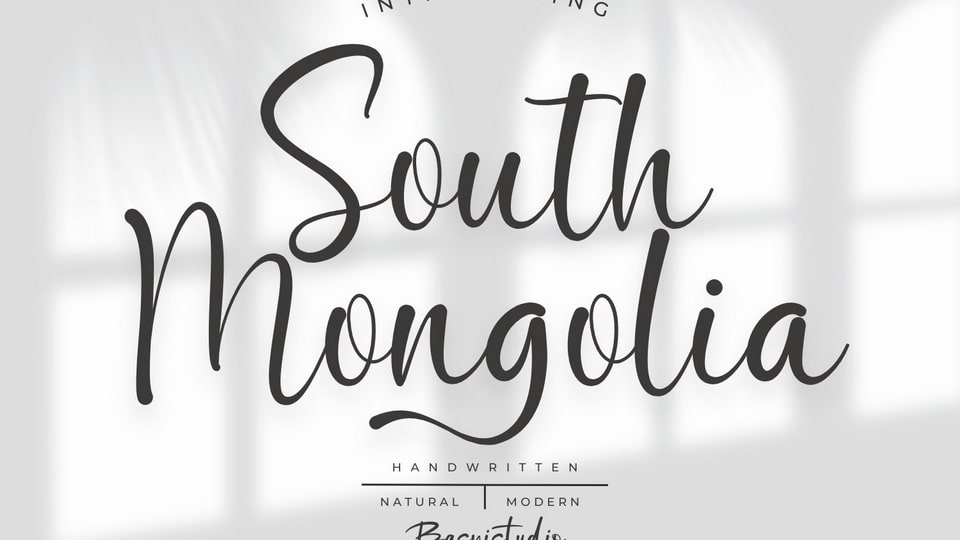
Download South Mongolia font, a pretty handwritten script typeface, made with a natural, relaxed flow and precision brush strokes, perfect for branding, websites, and editorial designs.